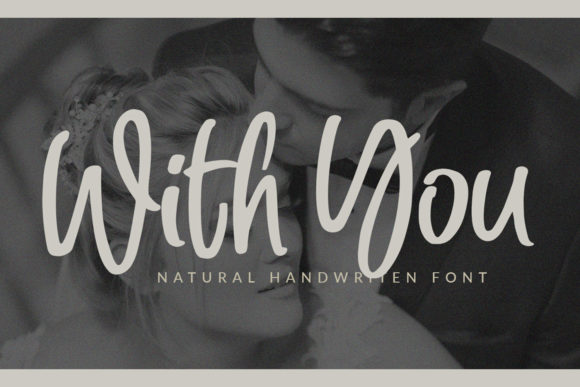
Unleash the Power of Expression with 'With You' Font: Where Elegance Meets Boldness
In the realm of digital design, fonts hold the key to unlocking a world of creativity and expression. With their ability to transform words into captivating works of art, fonts have the power to leave a lasting impression on your audience. Introducing 'With You' Font, a masterfully crafted script font that captivates with its relaxed, paint brushed strokes and irresistible visual appeal. Designed to elevate your creations beyond the ordinary, 'With You' Font is the perfect choice for those seeking to make a bold statement.
Experience the Beauty of Simplicity:
'With You' Font embraces the beauty of simplicity, allowing your words to shine through with effortless grace. Its clean lines and organic flow create a sense of harmony and balance, making it the ideal choice for a wide range of design projects. From elegant wedding invitations to captivating social media posts, 'With You' Font effortlessly adapts to your creative vision, ensuring your message is delivered with style and impact.
Make a Statement with Every Design:
With 'With You' Font, you have the power to make a statement with every design you create. Whether you're designing a logo for your business, a poster for an upcoming event, or simply adding a touch of personality to your personal projects, this font will elevate your work to new heights. Its strong visual effect ensures that your designs will stand out from the crowd, leaving a lasting impression that resonates with your audience.
Designed for the Digital Age:
In today's digital landscape, where attention spans are fleeting, it's more important than ever to capture your audience's attention instantly. 'With You' Font is meticulously designed to thrive in the digital realm, particularly on LED displays. Its bold strokes and carefully crafted letterforms ensure optimal readability and clarity, even at large sizes. Say goodbye to pixelation and distortion, and embrace the crisp, vibrant beauty of 'With You' Font.
A Font for Every Occasion:
'With You' Font's versatility knows no bounds. Whether you're designing for a formal event, a casual gathering, or anything in between, this font has the chameleon-like ability to adapt and enhance your creations. Its timeless appeal makes it suitable for a wide range of projects, from heartfelt love letters to cutting-edge marketing campaigns. With 'With You' Font, your design��能性�無�大 possibilities are endless.